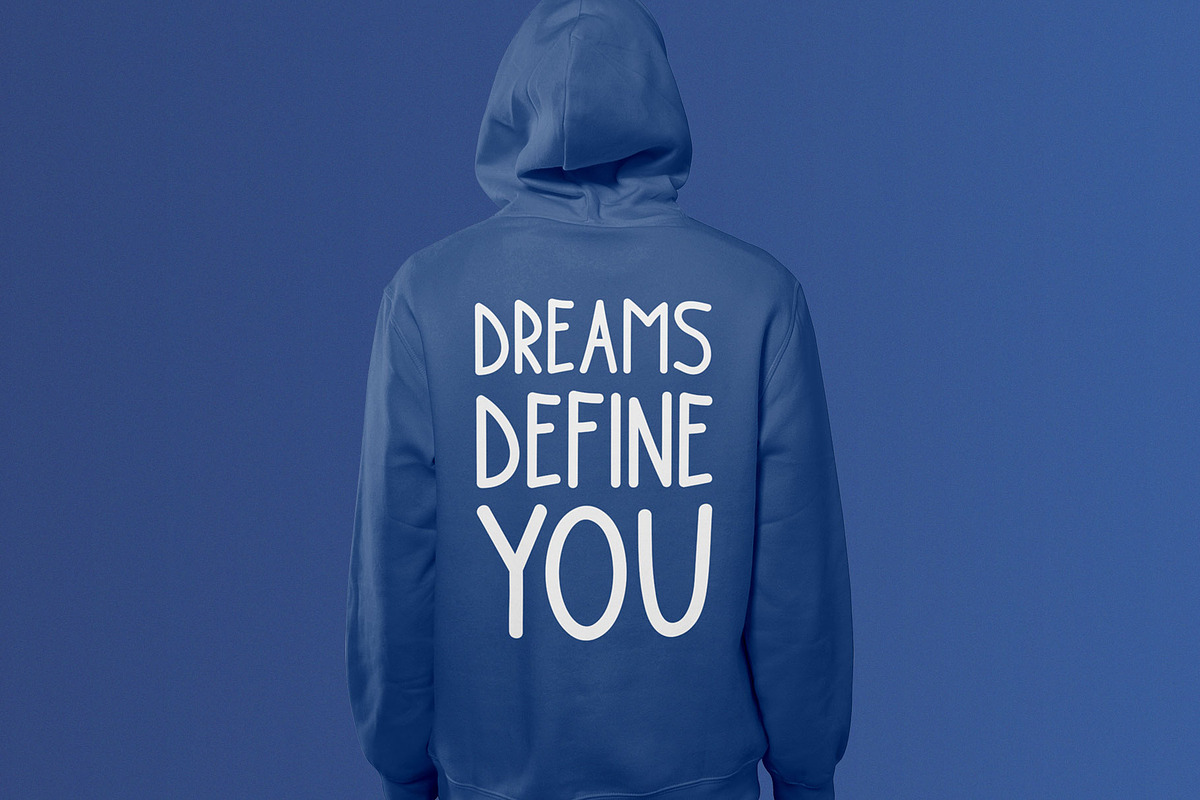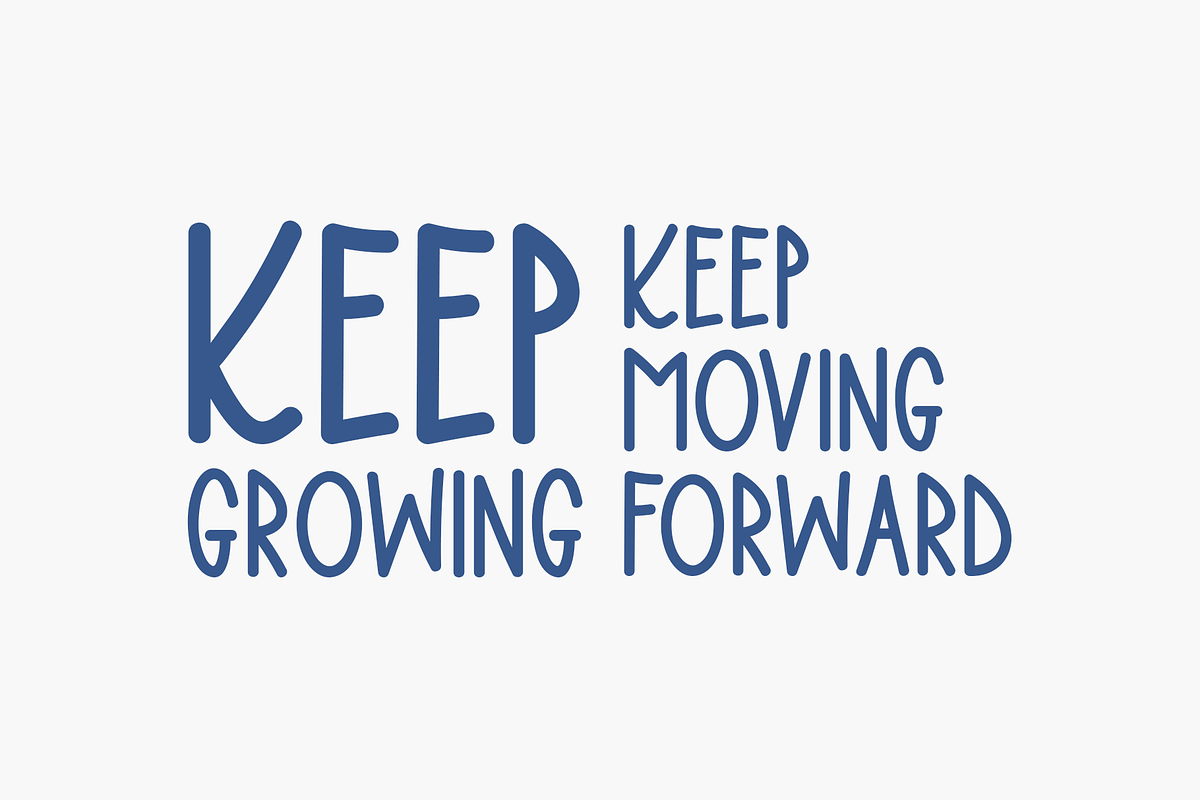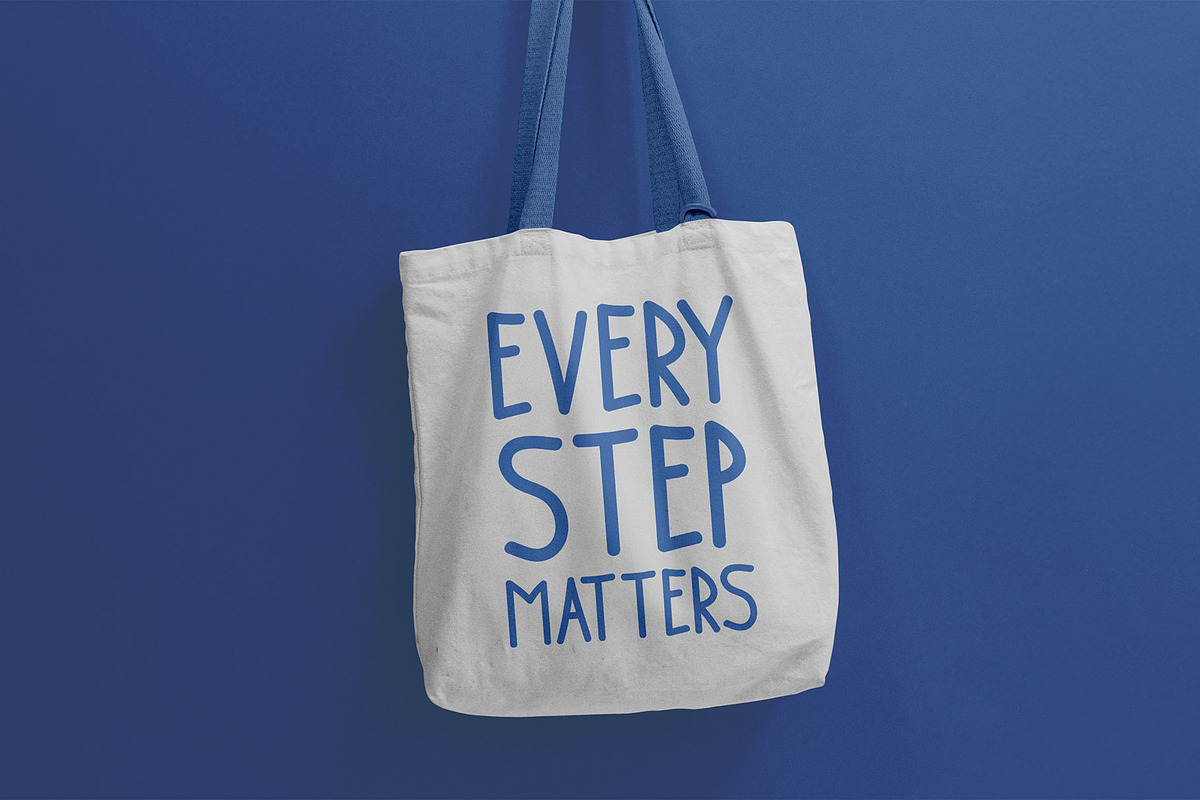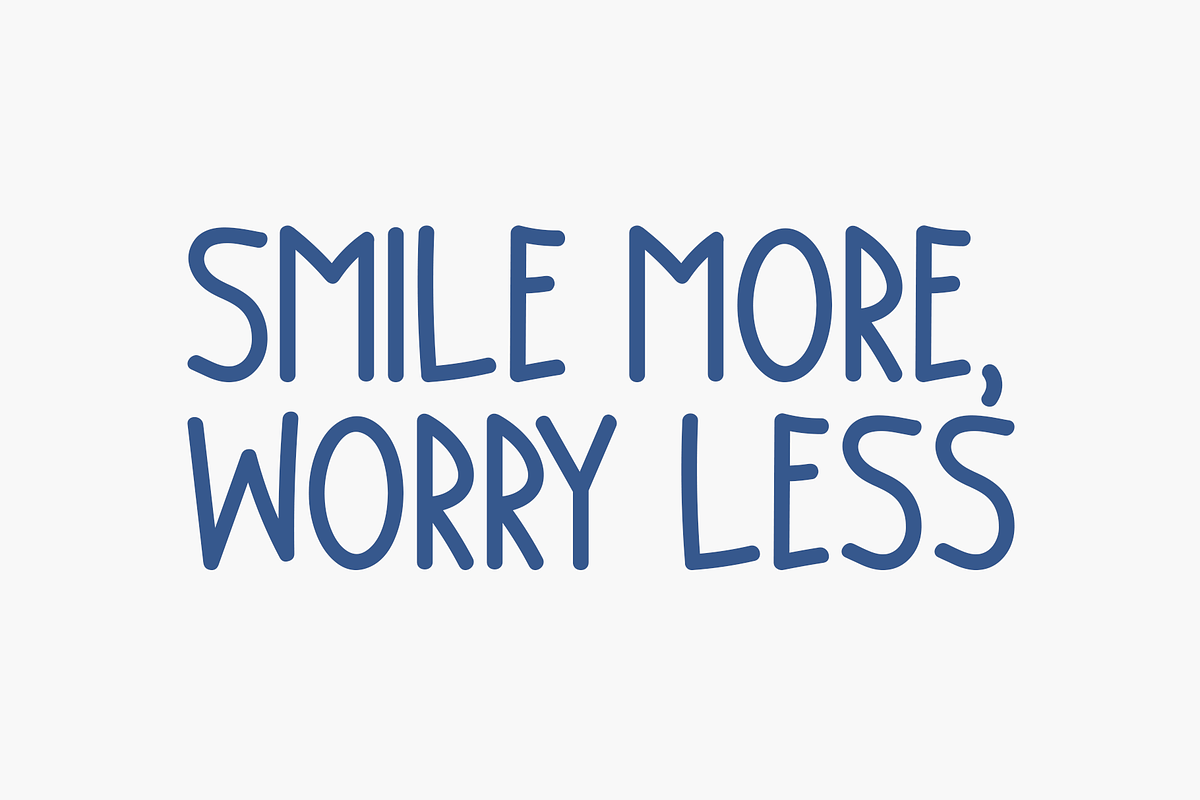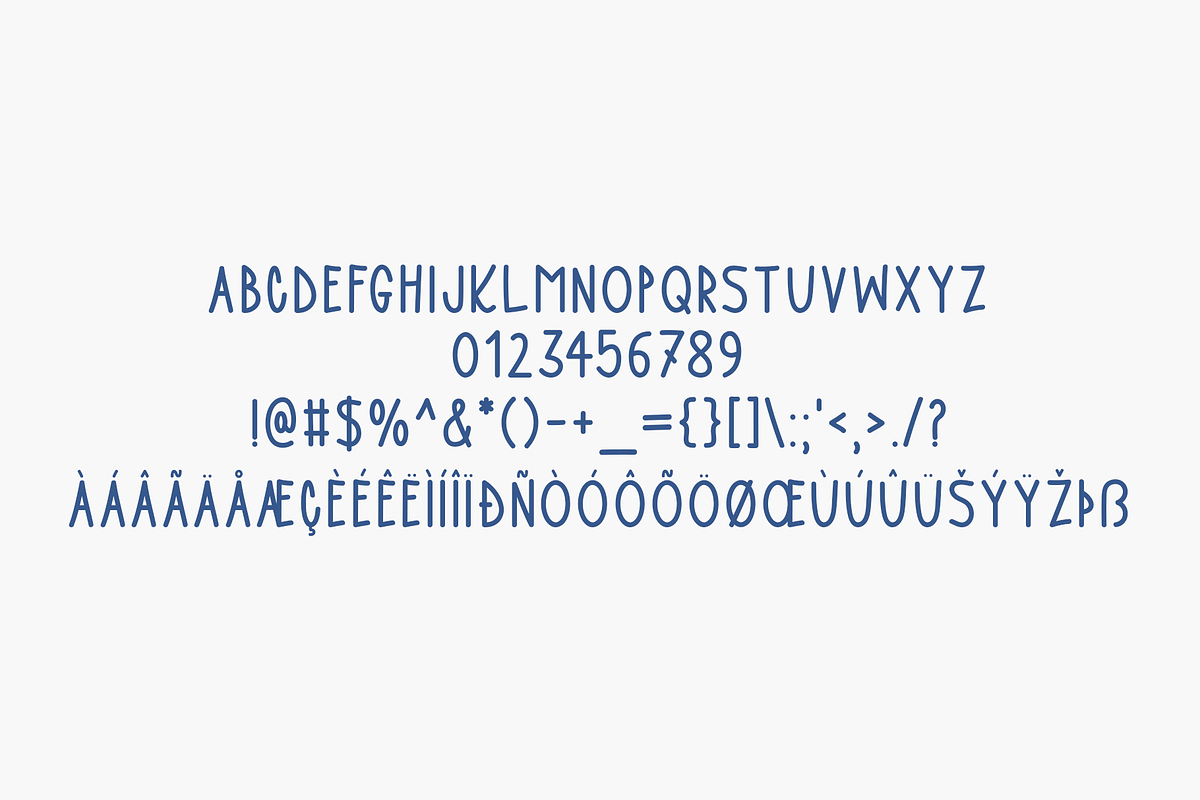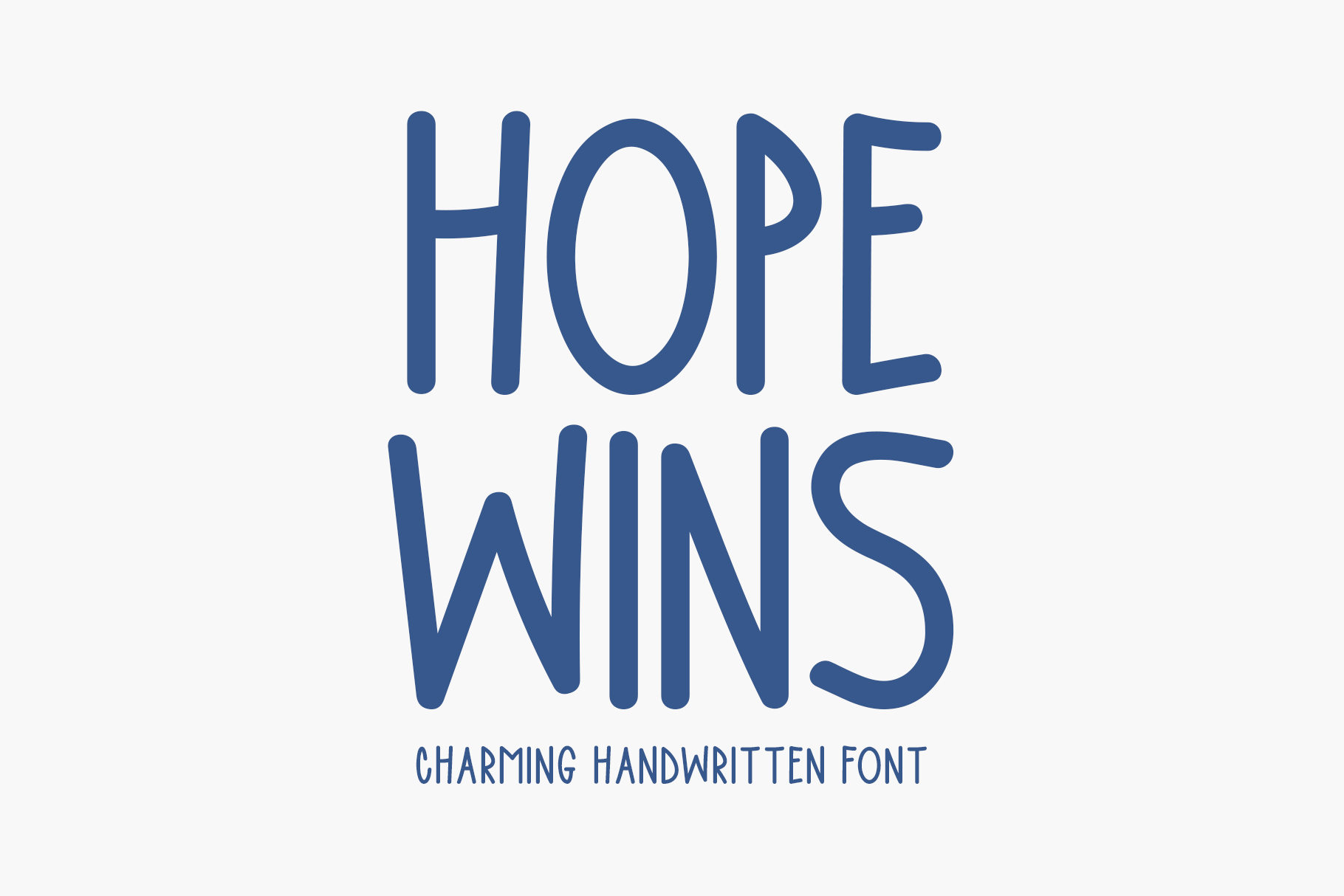
Hope Wins Typeface
Introducing Hope Wins!
Hope Wins is a sweet and charming handwritten font designed to bring positivity and elegance to your creations. Its gentle curves and flowing style make it perfect for a variety of projects, including stationery, apparel, branding, posters, invitations, and digital media. Whether you’re crafting something inspiring or simply adding a touch of beauty to your work, Hope Wins delivers a warm, handcrafted feel that speaks from the heart.
Includes a range of multilingual support